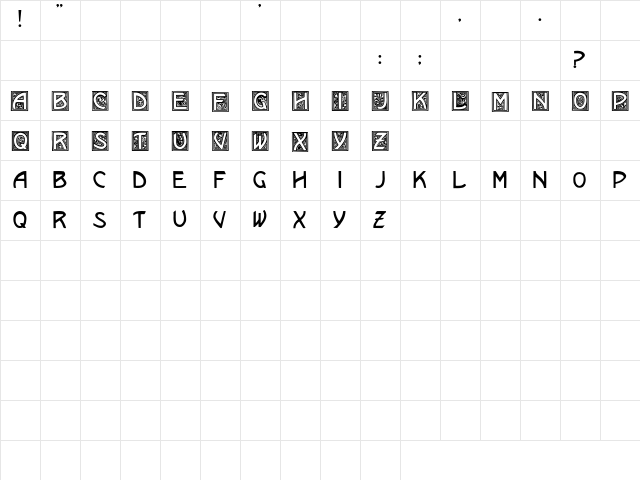
Kramer Regular Free Font
Kramer Regular
Design Context for Kramer
Kramer is a composed and adaptable typeface that performs quietly and consistently across a wide range of design contexts.